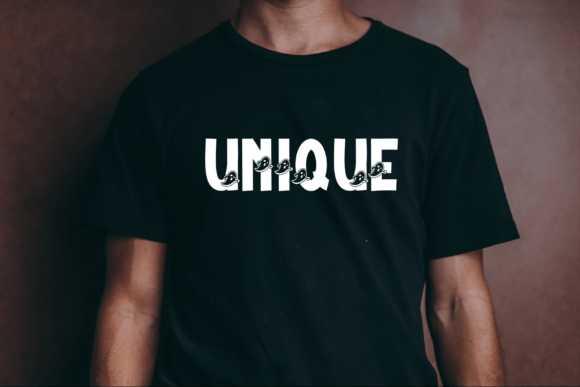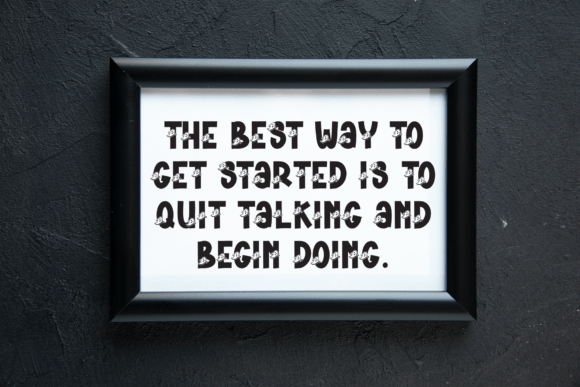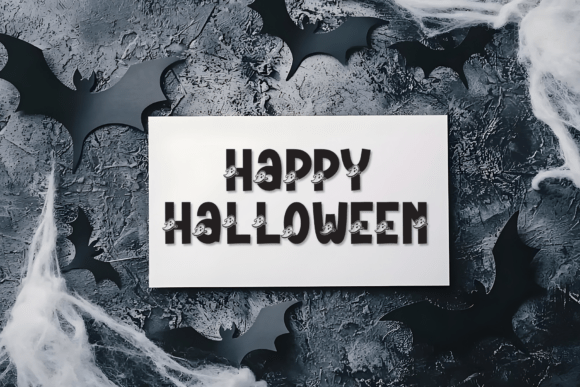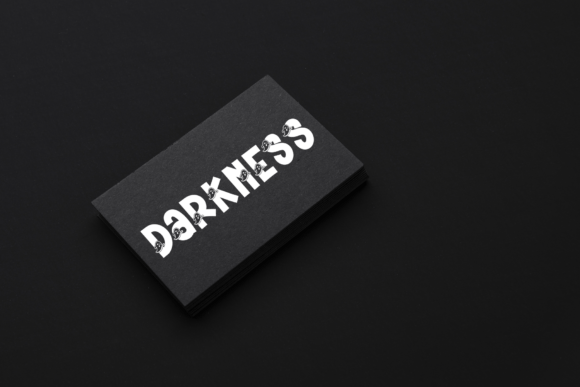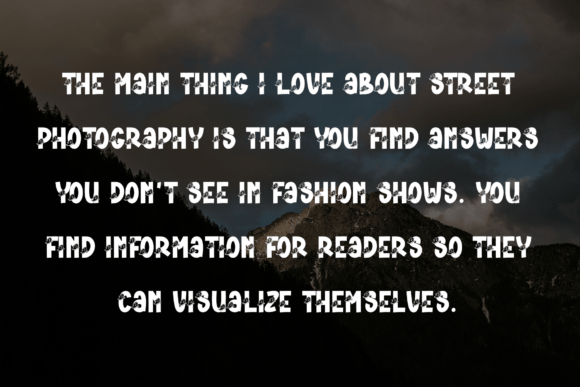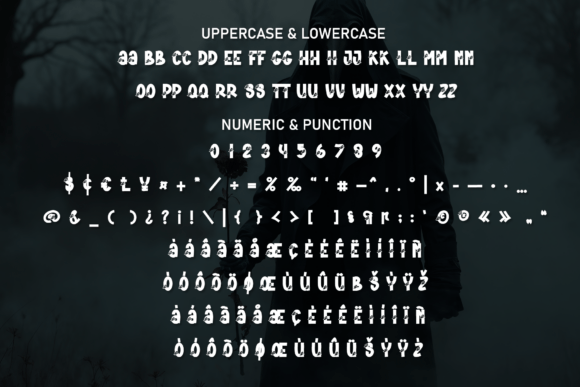
Discover the Charm of Ghost Hunter Font: A Perfect Blend of Simplicity and Friendliness
In the world of typography, fonts play a crucial role in conveying the tone and personality of a brand or design. Among the numerous fonts available, Ghost Hunter stands out as a casual and neat display font that has captured the hearts of designers and crafters alike. This beautiful font combines simplicity with a friendly, approachable vibe, making it an ideal choice for various design projects.
The Essence of Ghost Hunter Font
Ghost Hunter is a masterpiece of modern handwritten typography, boasting clean lines, balanced letterforms, and subtle rounded edges. Its polished finish gives it a sophisticated look that’s both elegant and refined. The font’s design is characterized by a perfect balance of simplicity and friendliness, making it versatile enough to be used in a wide range of applications.
Key Features of Ghost Hunter Font
- Clean Lines and Balanced Letterforms: Ghost Hunter’s clean lines and balanced letterforms ensure that the font is easy to read and understand, making it perfect for use in headlines, titles, and short paragraphs of text.
- Subtle Rounded Edges: The subtle rounded edges of Ghost Hunter give it a friendly and approachable feel, making it ideal for use in designs that require a warm and inviting tone.
- Polished Finish: The font’s polished finish adds a touch of sophistication and elegance, making it suitable for use in high-end branding, packaging, and digital content.
- Versatile Style: Ghost Hunter’s versatile style makes it easy to use in a variety of design projects, from casual social media posts to formal business branding.
Ideal Use Cases for Ghost Hunter Font
Ghost Hunter is an incredibly versatile font that can be used in a wide range of design projects. Here are some ideal use cases for this beautiful font:
- Branding: Ghost Hunter is perfect for use in branding projects, such as logos, business cards, and letterheads, where a friendly and approachable tone is required.
- Headlines and Titles: The font’s clean lines and balanced letterforms make it ideal for use in headlines and titles, where clarity and readability are essential.
- Packaging: Ghost Hunter’s polished finish and versatile style make it suitable for use in packaging design, where a sophisticated and elegant look is required.
- Digital Content: The font’s crisp structure and warm tone make it perfect for use in digital content, such as social media posts, blog articles, and website headers.
Benefits of Using Ghost Hunter Font
Using Ghost Hunter font in your design projects offers numerous benefits, including:
- Improved Readability: The font’s clean lines and balanced letterforms ensure that your text is easy to read and understand.
- Enhanced Visual Appeal: Ghost Hunter’s polished finish and subtle rounded edges add a touch of sophistication and elegance to your designs.
- Increased Versatility: The font’s versatile style makes it easy to use in a wide range of design projects, from casual social media posts to formal business branding.
- Time-Saving: Ghost Hunter’s high-quality design saves you time and effort in creating professional-looking designs.
Ghost Hunter font is a beautiful and versatile display font that combines simplicity with a friendly, approachable vibe. Its clean lines, balanced letterforms, and subtle rounded edges make it perfect for use in a wide range of design projects, from branding and headlines to packaging and digital content. With its polished finish and crisp structure, Ghost Hunter delivers clarity and charm in equal measure, making it an ideal choice for designers and crafters looking to add a warm and inviting touch to their designs.